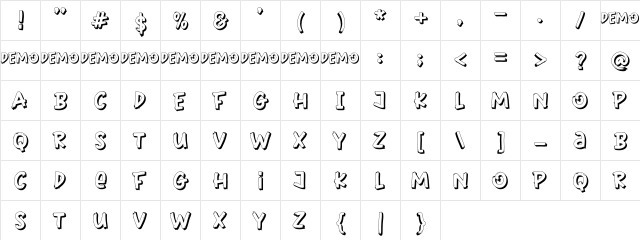
Bombtrack Demo Regular
| Foundry | Epiclinez |
| Designer | Aldy Sidik |
Design Context for Bombtrack Demo Typeface
Bombtrack Demo is a composed and adaptable typeface that performs quietly and consistently across a wide range of design contexts.